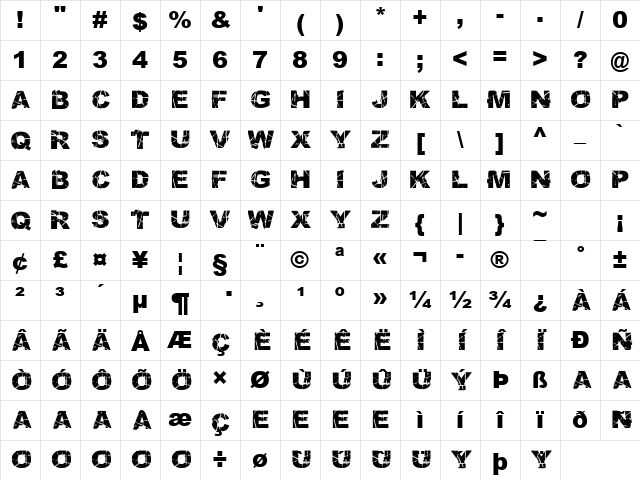
Skratch Punk Regular Free Font
Skratch Punk Regular
Design Context for Skratch Punk
Skratch Punk is a composed and adaptable typeface that performs quietly and consistently across a wide range of design contexts.